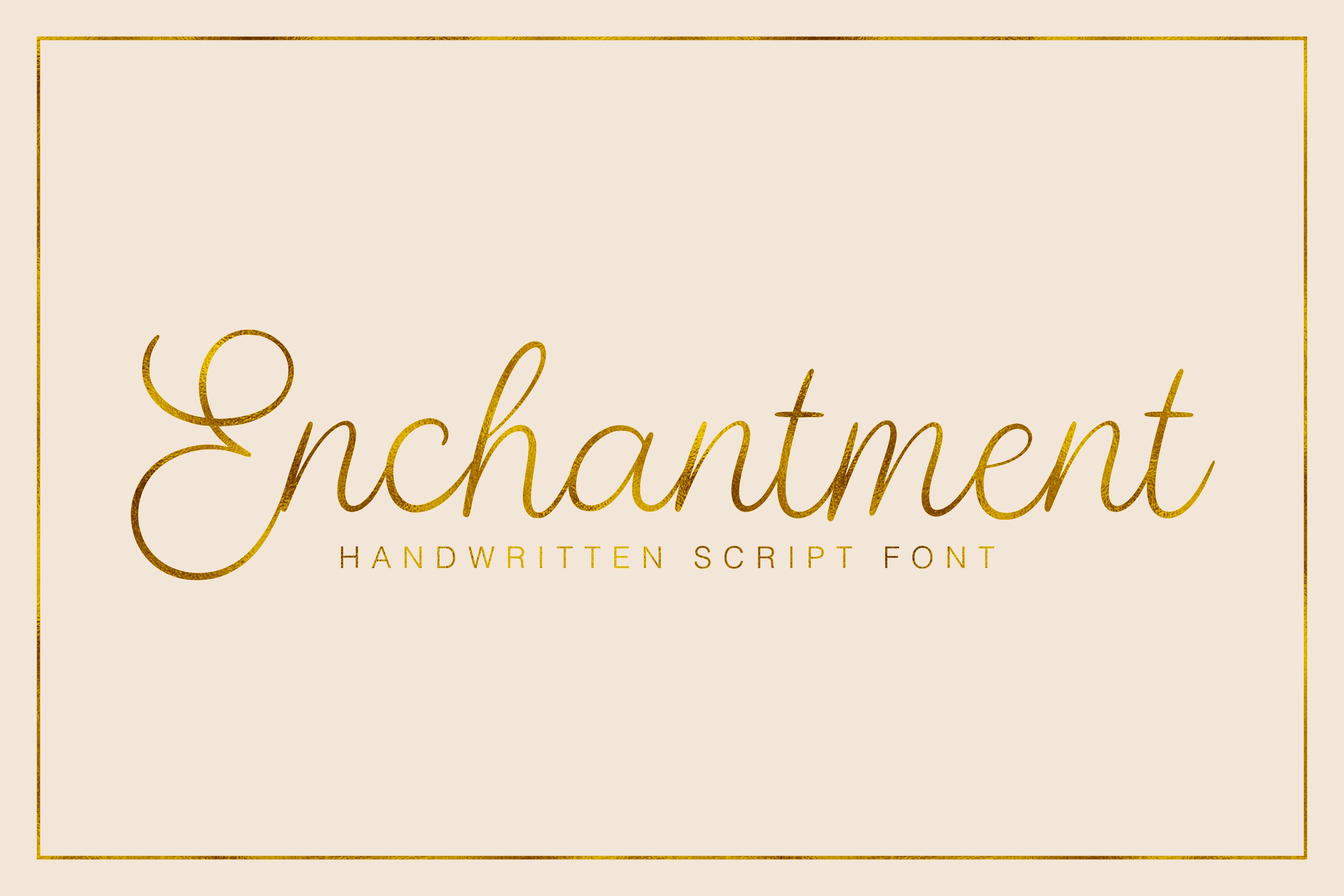
introducing the Enchantment handwritten/hand drawn font. This thin, elegant handwritten script font is perfect for any design. It works great for branding, logos, posters, magazines, quotes, or and more!